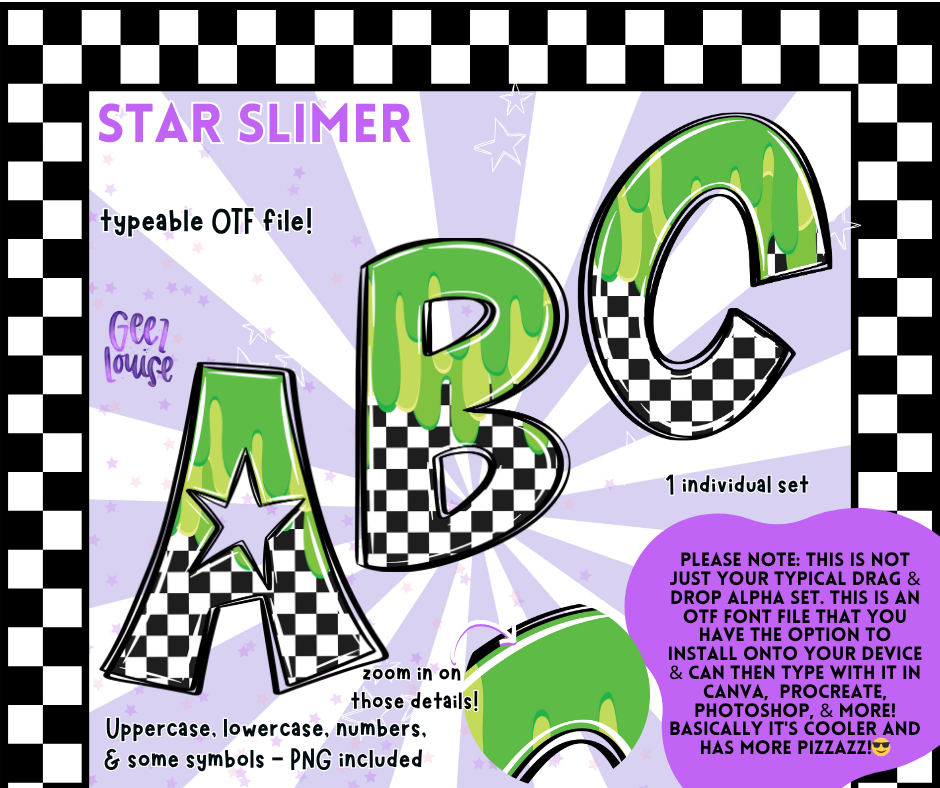
Star Slimer Alpha – Green Slime Checkered OTF Font & PNG Set
💚👽 Add some oozy, spooky fun to your projects with the Star Slimer Alpha – a bold black-and-white checkered design dripping with neon green slime and a star cutout for extra flair.
Perfect for Halloween invites, alien-inspired merch, gaming designs, and anything that needs a pop of neon slime.